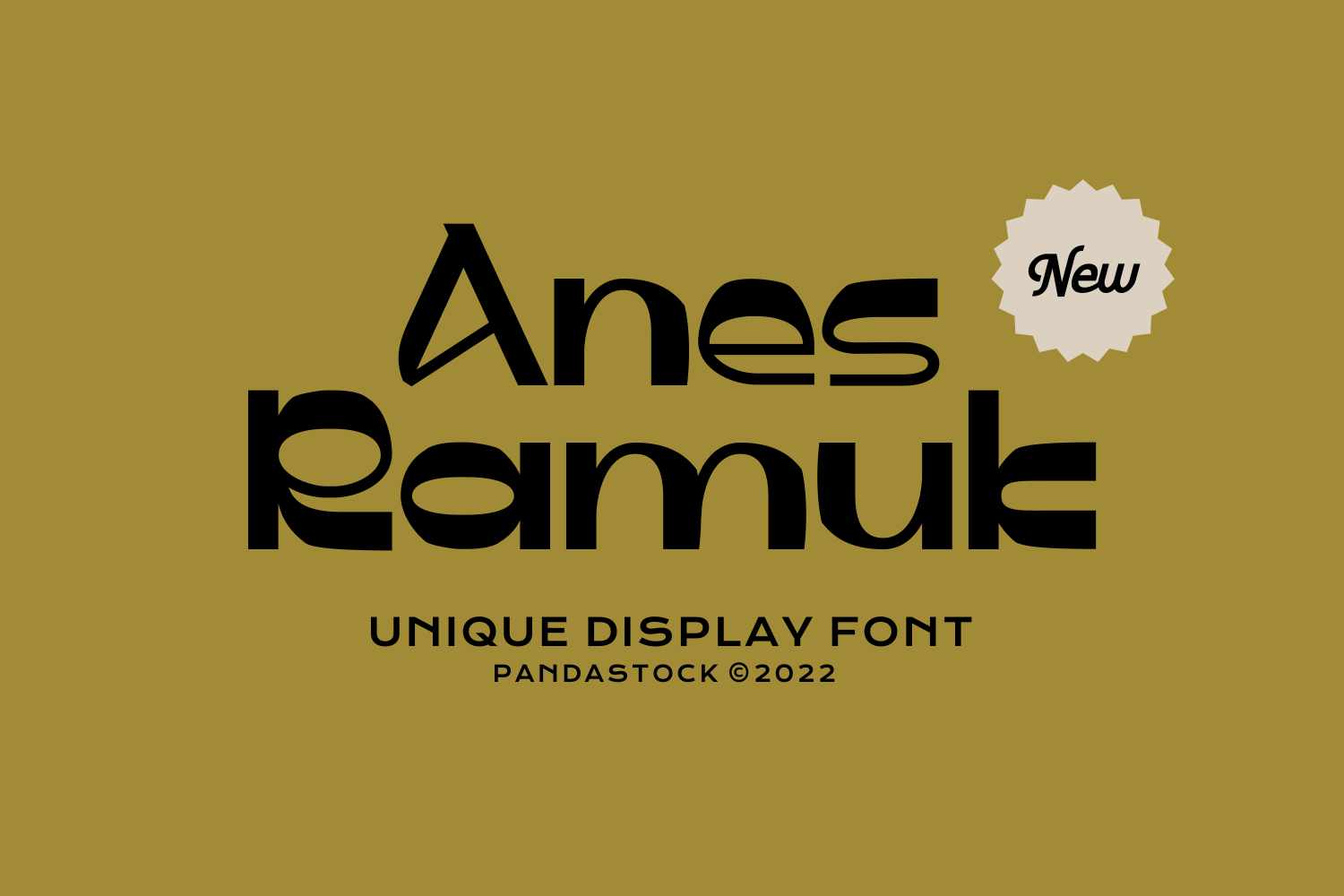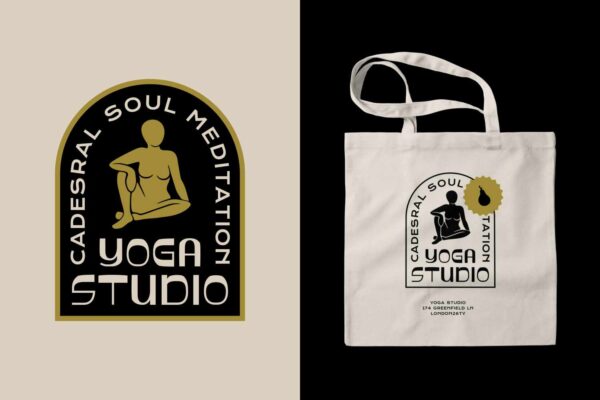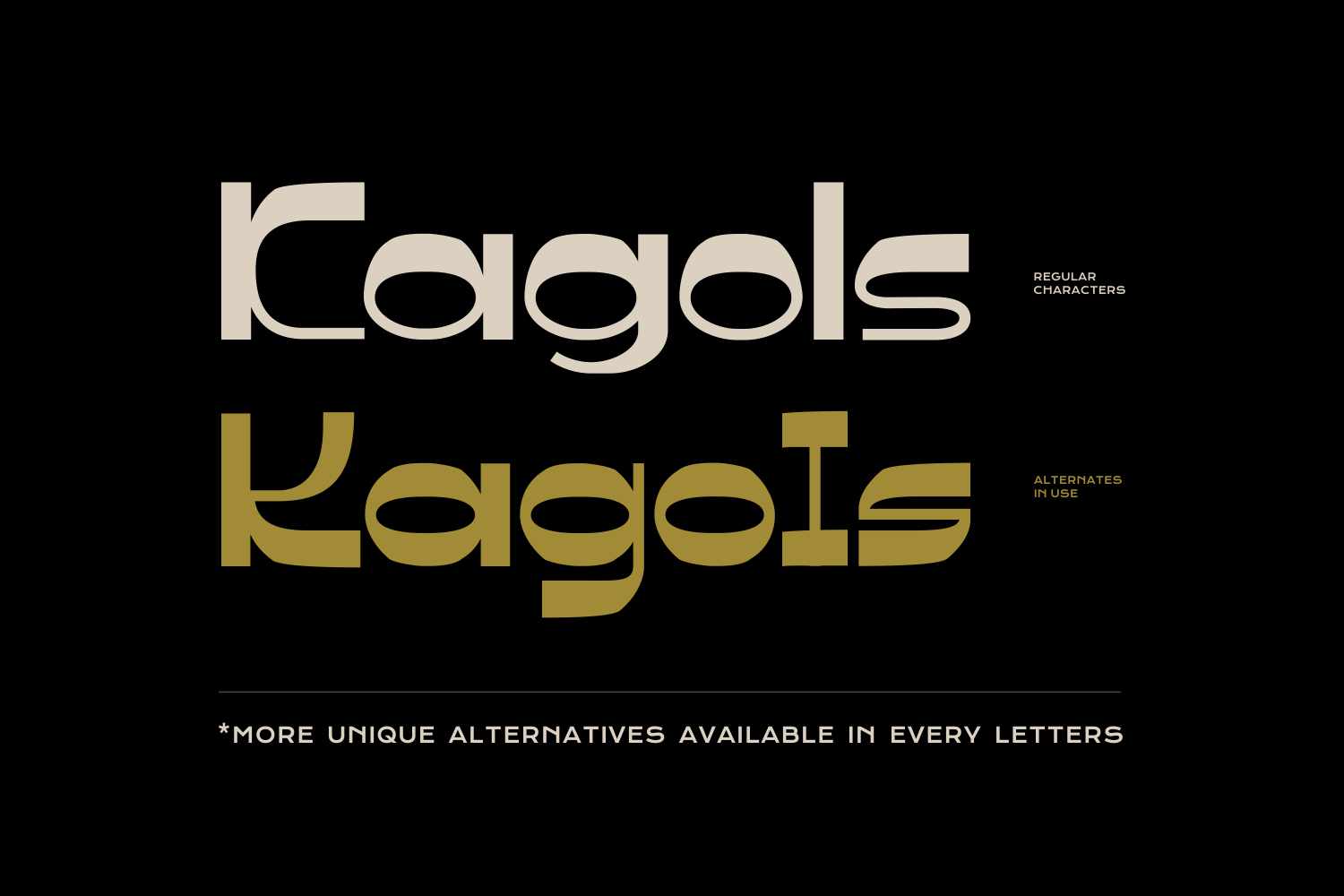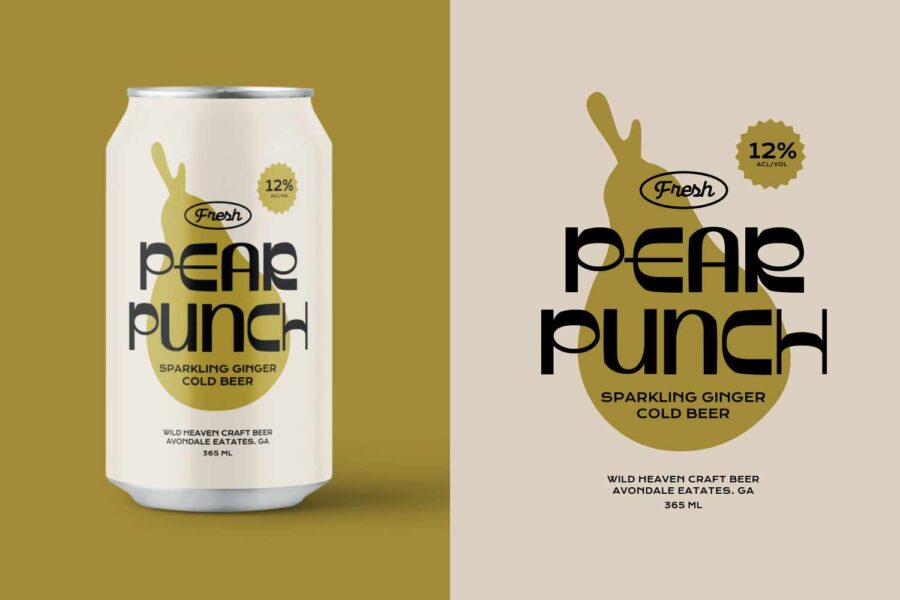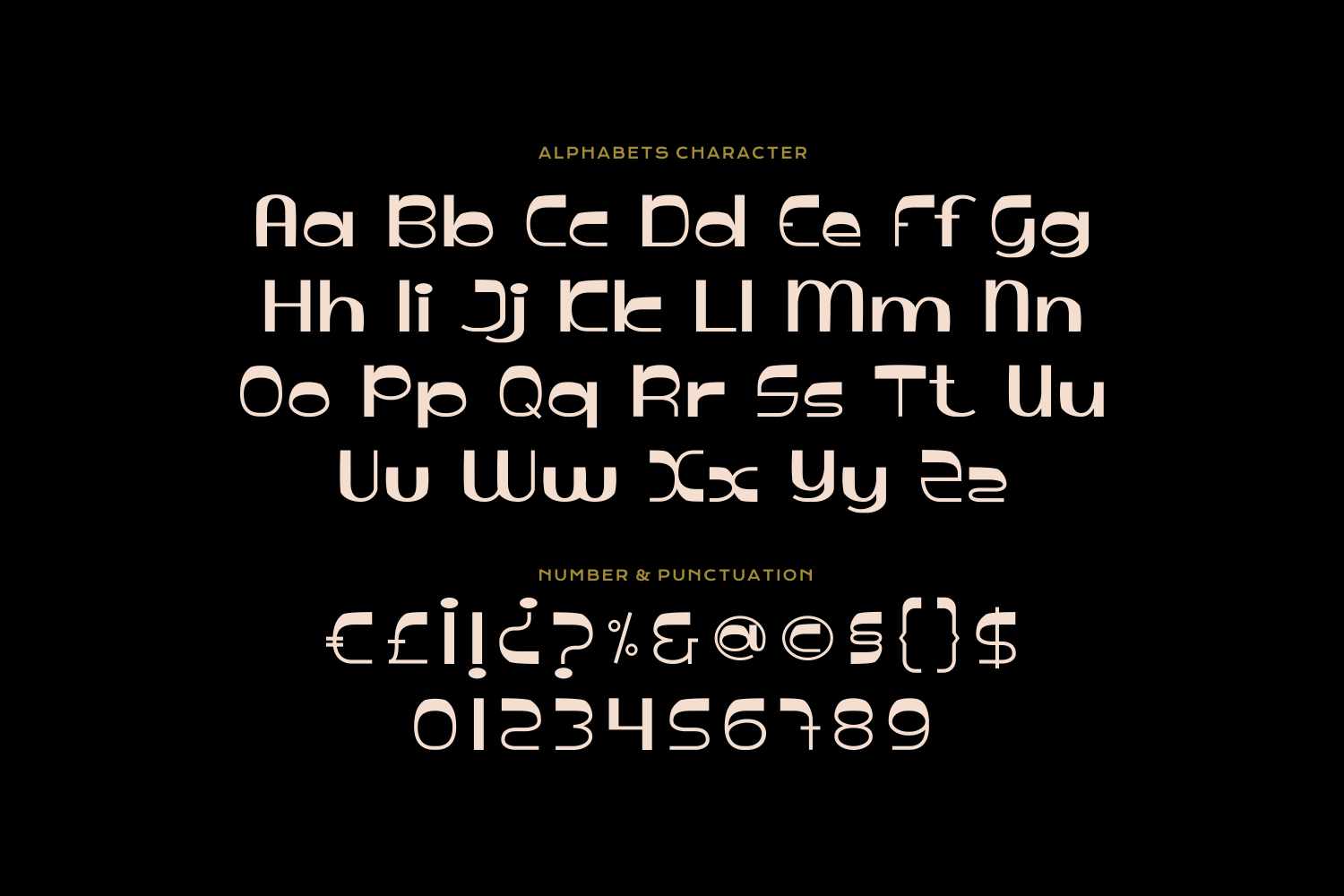
Anes Ramuk
Anes Ramuk is a bold and futuristic display font designed with sharp geometric edges and smooth rounded curves that create a perfect balance of modernity and uniqueness. Its letterforms are experimental yet highly legible, making it an ideal choice for projects that require a cutting-edge visual identity. With stylish alternates in every character, Anes Ramuk allows designers to explore limitless possibilities in creating standout branding, packaging, posters, or editorial layouts.
This font is perfect for contemporary brands that want to stand out with an innovative and stylish look. From logos, fashion campaigns, and product packaging to creative advertising, Anes Ramuk delivers a futuristic vibe while maintaining readability. Its versatility makes it suitable for both bold headlines and stylish text compositions, giving your designs a distinctive and unforgettable personality.